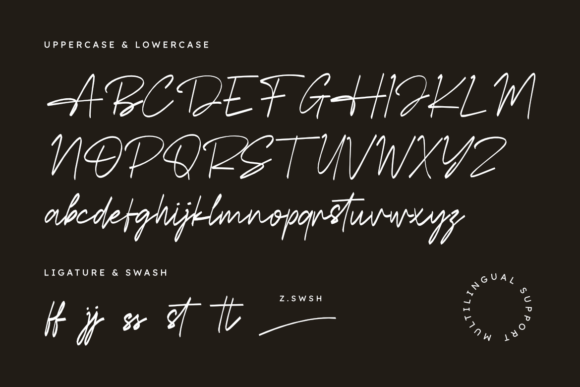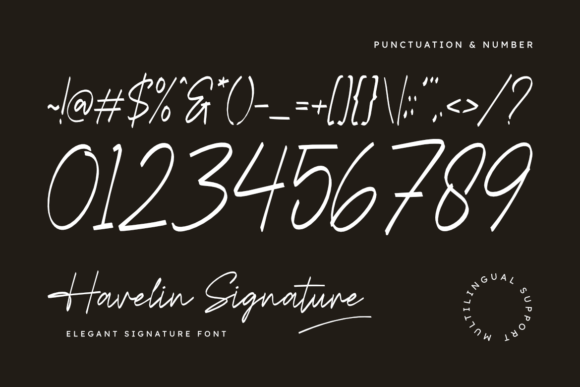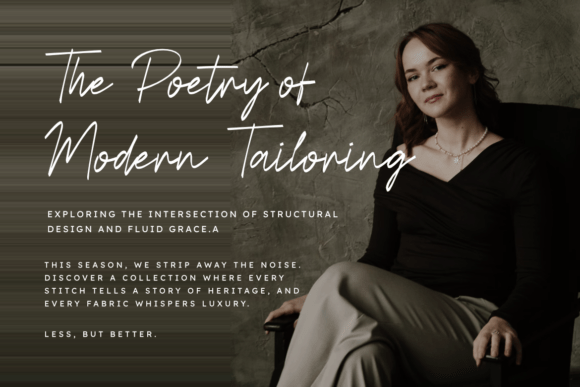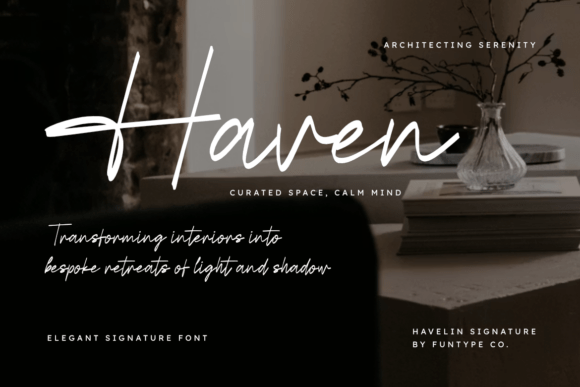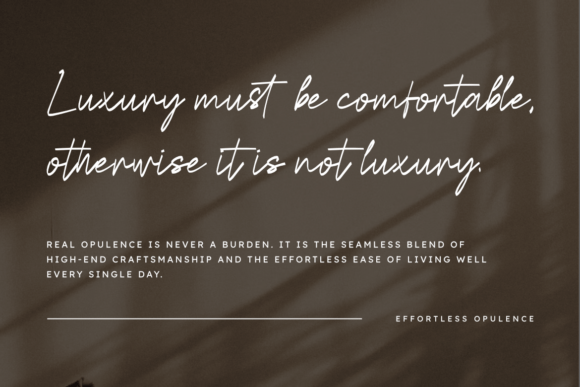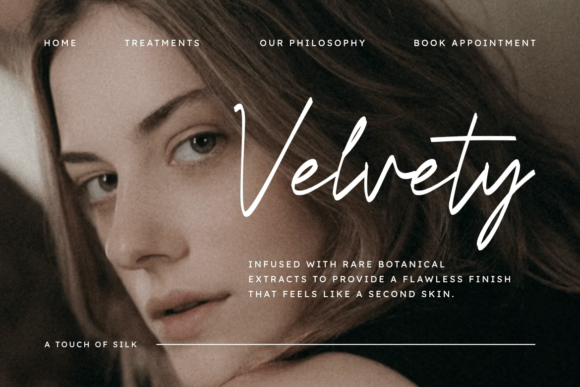
Introducing Havelin Signature: The Epitome of Elegance in Typography
In the realm of typography, few fonts manage to convey the essence of luxury and sophistication as effectively as Havelin Signature. This contemporary signature script typeface has been meticulously crafted to elevate your designs, adding an intimate and riveting touch that captivates audiences. Whether you’re creating luxurious wedding invitations, distinctive photography watermarks, stylish branding, or contemporary lifestyle logos, Havelin Signature emerges as the ultimate choice for designers and crafters seeking to imbue their work with elegance and refinement.
The Beauty of Havelin Signature
One of the standout features of Havelin Signature is its graceful composition and organic flow. The font’s design exudes a sense of fluidity and movement, making it perfect for applications where a personal touch is desired. The elegant lines and curves of Havelin Signature not only add a touch of sophistication to your designs but also convey a sense of warmth and approachability. This unique blend of style and sentimentality makes Havelin Signature an excellent choice for a wide range of design projects.
Crafting Luxurious Designs with Havelin Signature
For designers and crafters looking to create luxurious and high-end designs, Havelin Signature offers a wealth of possibilities. Its refined aesthetic and professional appeal make it an ideal choice for:
- Wedding Invitations: Add a touch of elegance and sophistication to your wedding invitations, setting the tone for an unforgettable celebration.
- Photography Watermarks: Elevate your photography with distinctive watermarks that not only protect your work but also add a professional touch.
- Stylish Branding: Create memorable brand identities that exude luxury and refinement, helping you to stand out in a crowded market.
- Lifestyle Logos: Craft contemporary logos that embody the essence of your brand, resonating with your target audience.
The Benefits of Using Havelin Signature
Havelin Signature offers a range of benefits that make it an attractive choice for designers and crafters. Some of the key advantages of using this magnificent font include:
- Purity and Refinement: Havelin Signature embodies the essence of purity and refinement, adding a striking and professional appeal to your designs.
- Emotional Resonance: The font’s elegant design and organic flow create an emotional connection with your audience, making your designs more impactful.
- Versatility: Havelin Signature is a versatile font that can be used in a wide range of design applications, from luxurious wedding invitations to stylish branding.
Tips for Getting the Most Out of Havelin Signature
To truly harness the power of Havelin Signature, consider the following tips:
- Experiment with Ligatures: Take advantage of the font’s ligatures to create a more fluid and natural look.
- Play with Font Sizes: Use varying font sizes to add visual hierarchy and emphasis to your designs.
- Pair with Complementary Fonts: Combine Havelin Signature with complementary fonts to create a unique and harmonious typography.
In conclusion, Havelin Signature is a magnificent contemporary signature script typeface that offers designers and crafters a powerful tool for creating luxurious and sophisticated designs. With its graceful composition, organic flow, and refined aesthetic, Havelin Signature is the ultimate choice for anyone looking to add a touch of elegance and refinement to their work. Whether you’re creating wedding invitations, photography watermarks, stylish branding, or contemporary lifestyle logos, Havelin Signature is sure to impress.